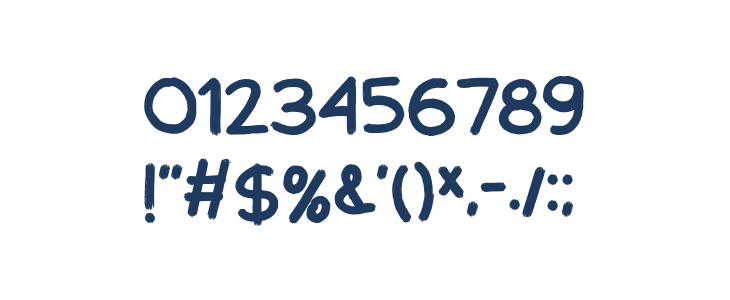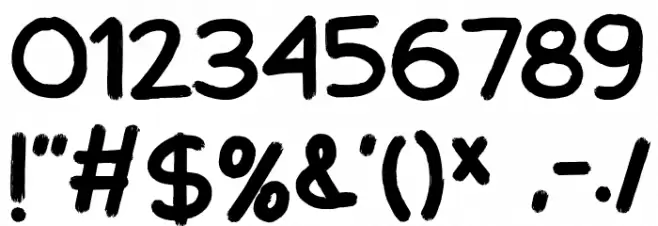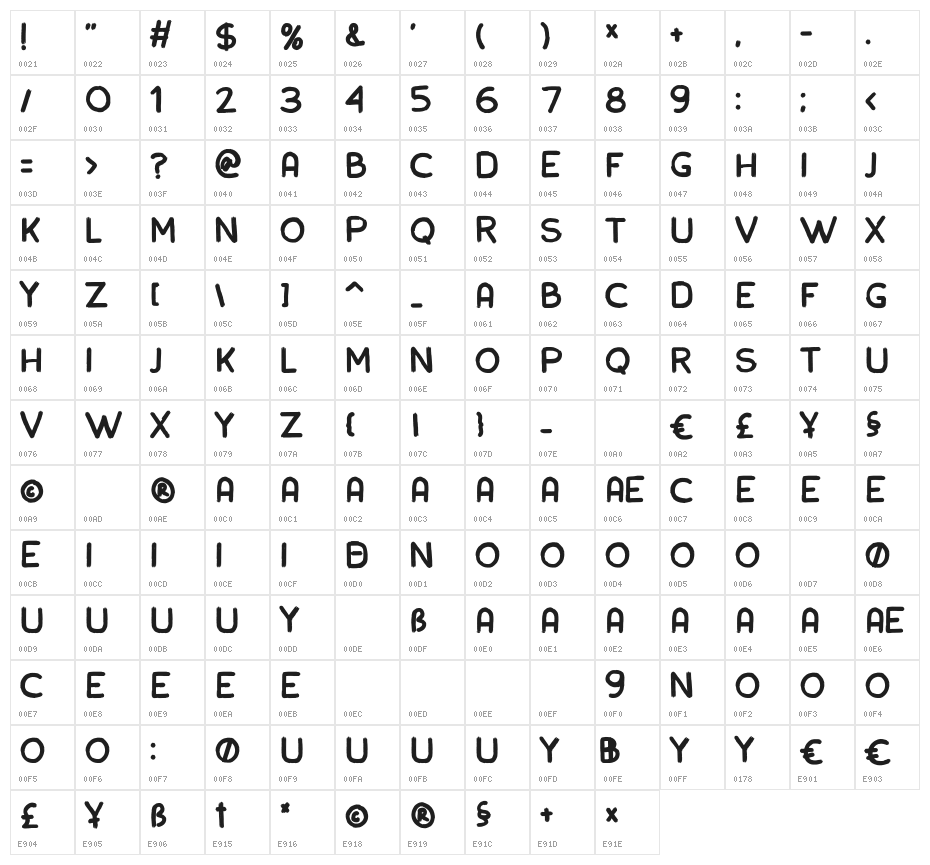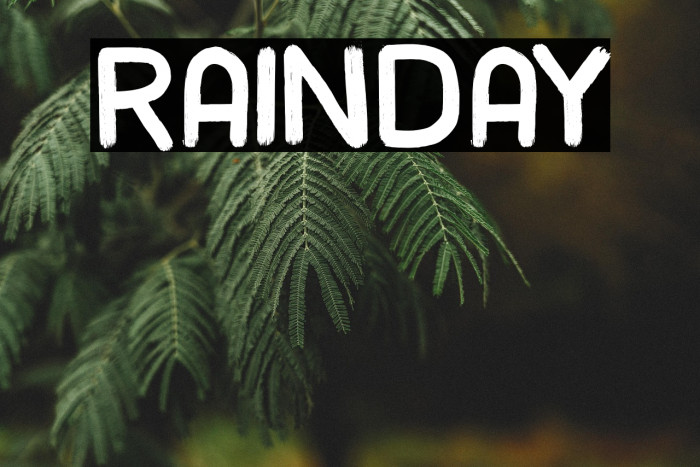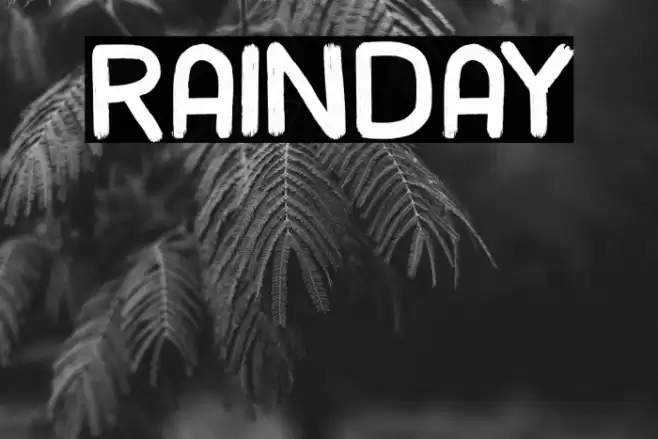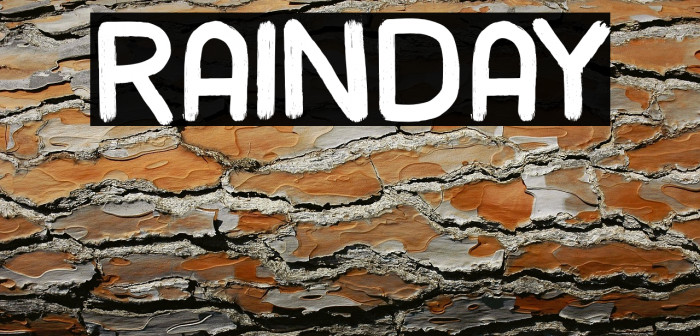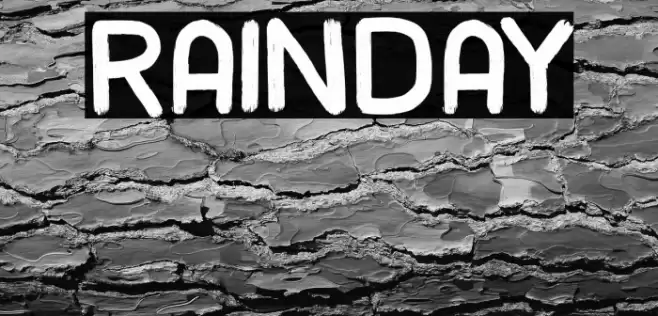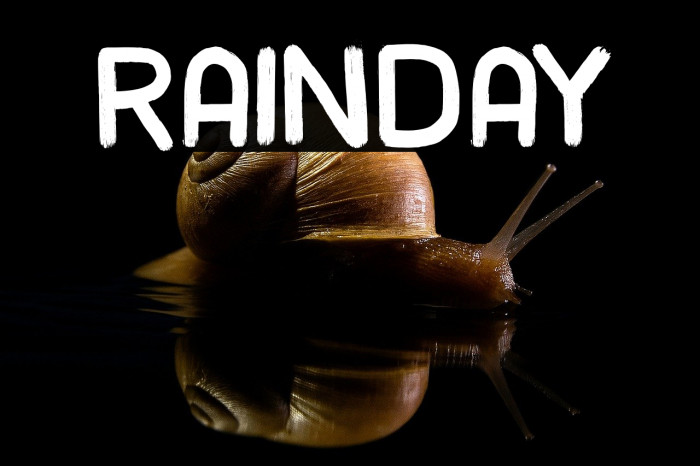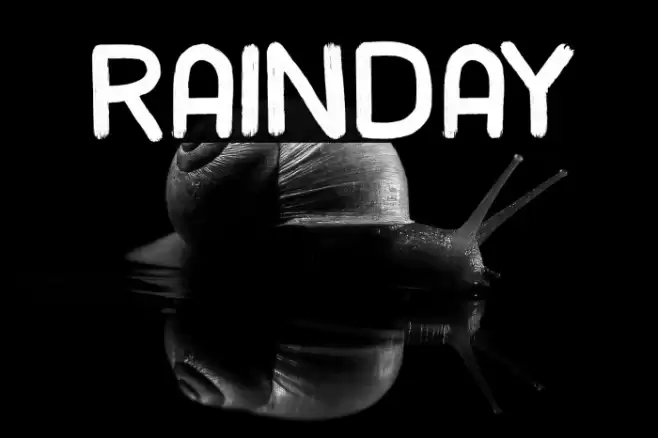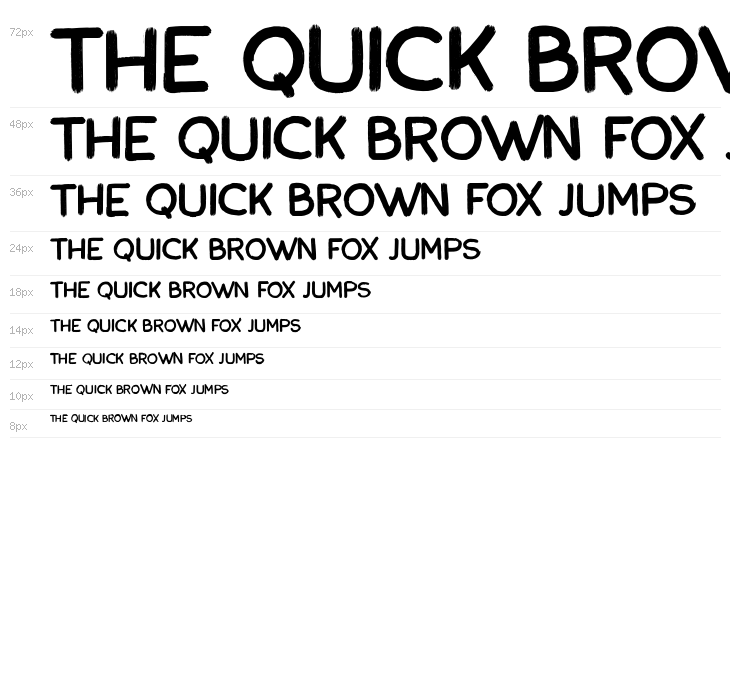
rainday Font
rainday Description
This font features a bold, hand-drawn style with a playful and casual appearance. The letters are slightly irregular, giving it a natural, organic feel. The strokes are thick and consistent, creating a strong visual impact. The characters are well-spaced, ensuring readability while maintaining a unique, artistic flair. This font is versatile, suitable for projects that require a personal touch or a creative, informal vibe. The numbers and special characters are designed to match the overall style, maintaining the hand-crafted look throughout.
| Proposed Projects | Ideal for greeting cards, posters, children's books, and creative branding. |